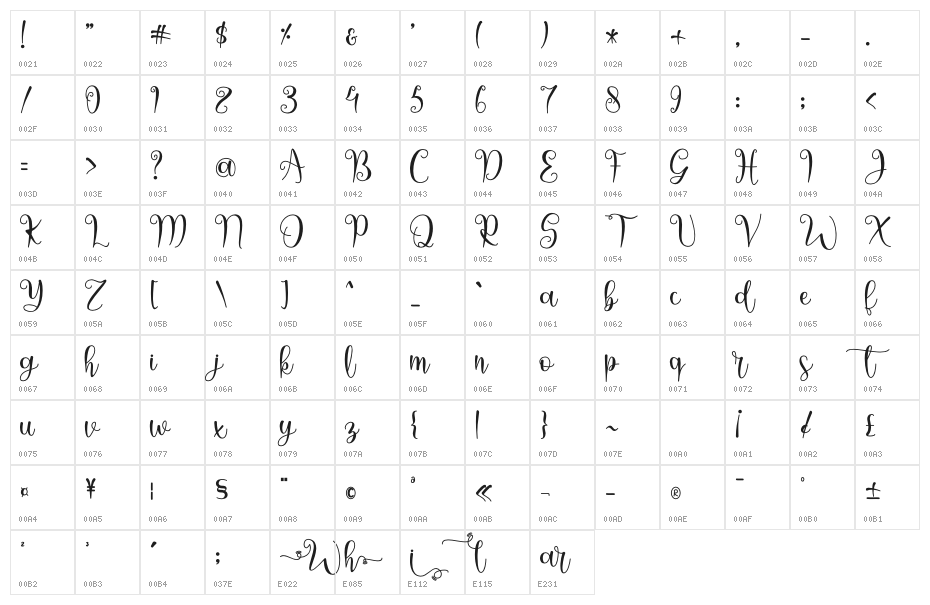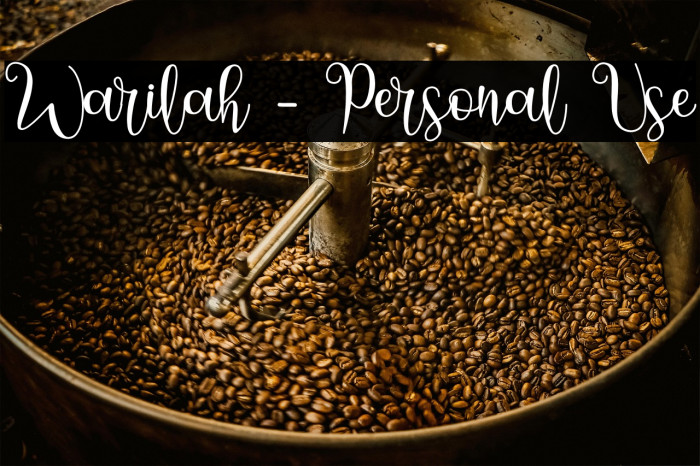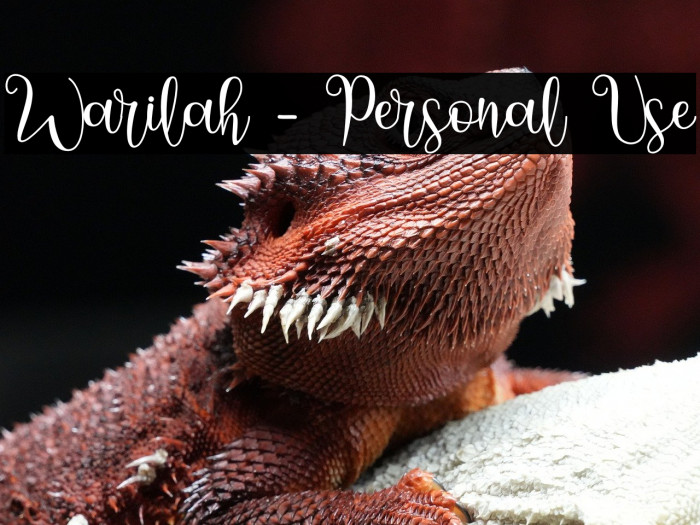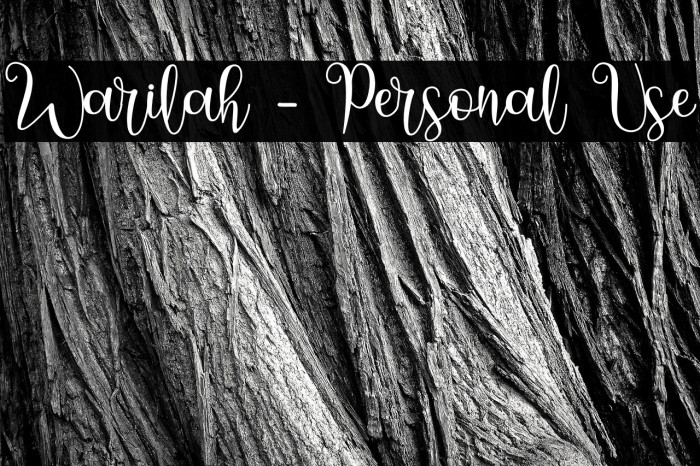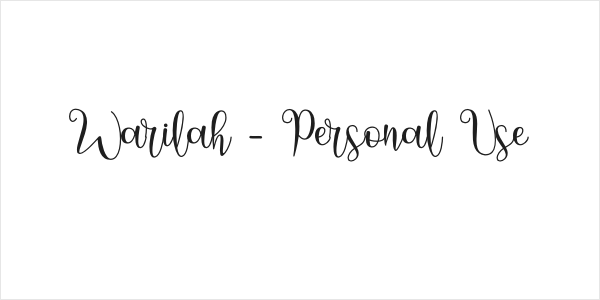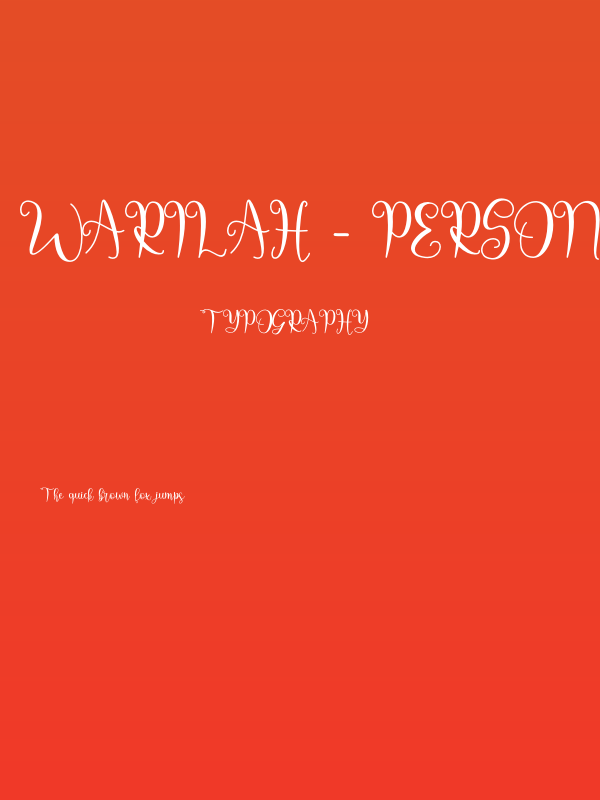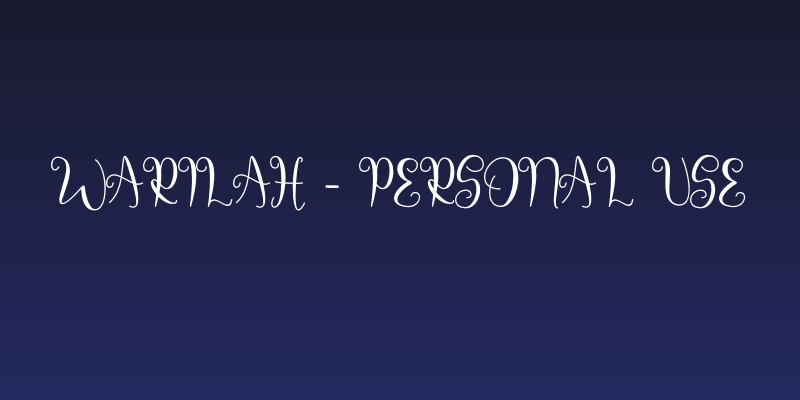
Warilah - Personal Use Font
Warilah - Personal Use Description
This font features an elegant and flowing script style, characterized by its smooth, cursive letterforms with intricate loops and swashes. The uppercase letters are particularly ornate, with decorative flourishes that add a touch of sophistication. The lowercase letters maintain a consistent flow, enhancing readability while preserving the artistic flair. Numbers and special characters are designed with similar attention to detail, ensuring a cohesive look across all elements. The overall appearance is both graceful and dynamic, making it suitable for projects that require a personal and artistic touch.